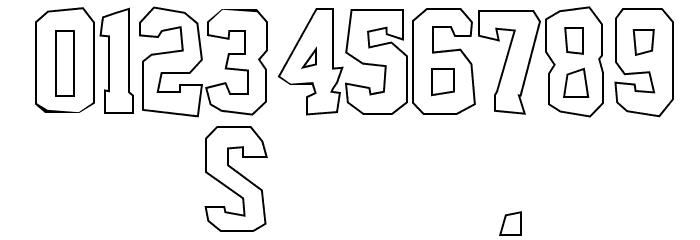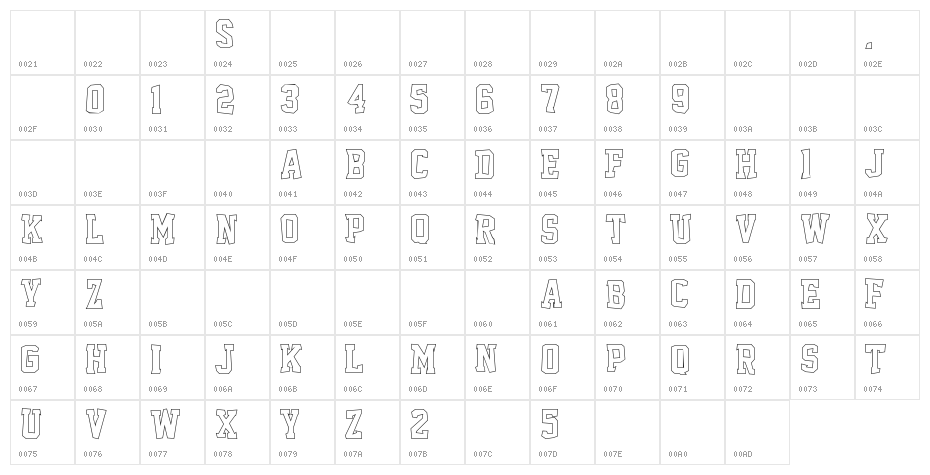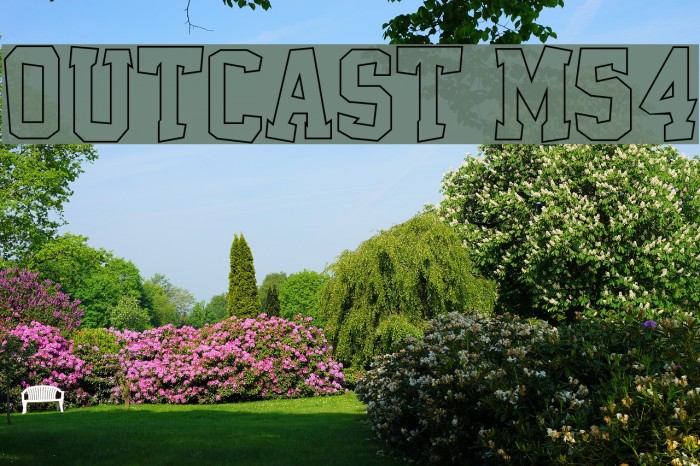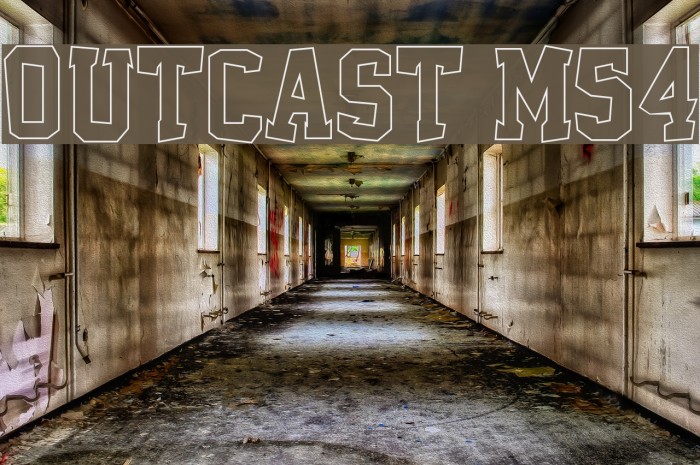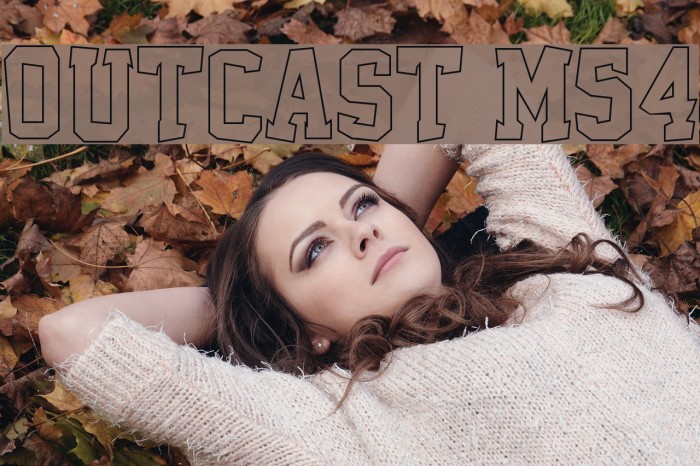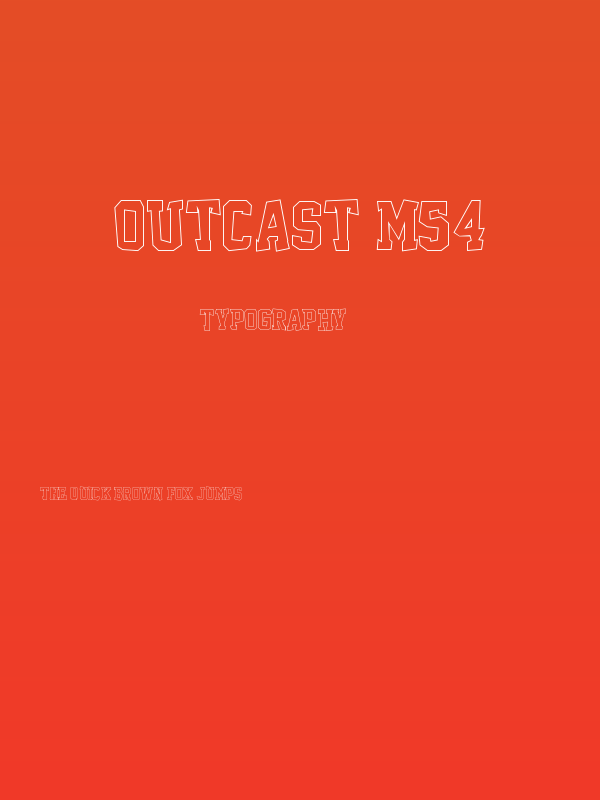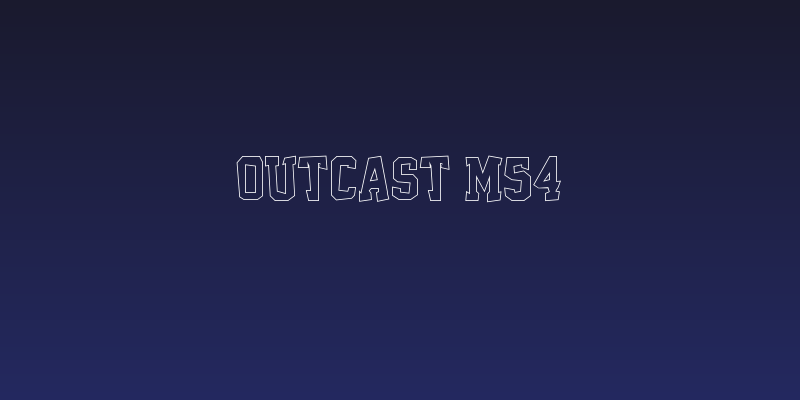
Outcast M54 Font
Outcast M54 Description
This font features a bold, angular design with a strong presence. Each character is outlined, giving it a three-dimensional effect that enhances its visibility and impact. The letters are uniformly wide, with sharp edges and a slightly condensed form, creating a sense of strength and stability. The numbers and special characters follow the same stylistic approach, ensuring consistency across all elements. This font is ideal for projects that require a commanding and assertive typeface, such as sports team logos, event posters, or any design that needs to convey power and confidence.
| Use Case | Logos, Headlines |
| Proposed Projects | Ideal for sports team logos, event posters, and designs needing a strong, assertive typeface. |